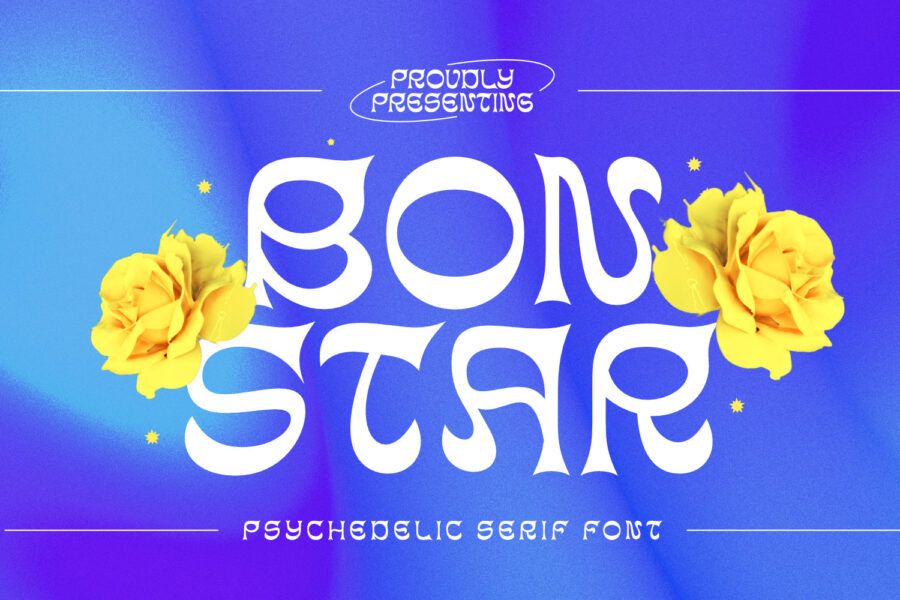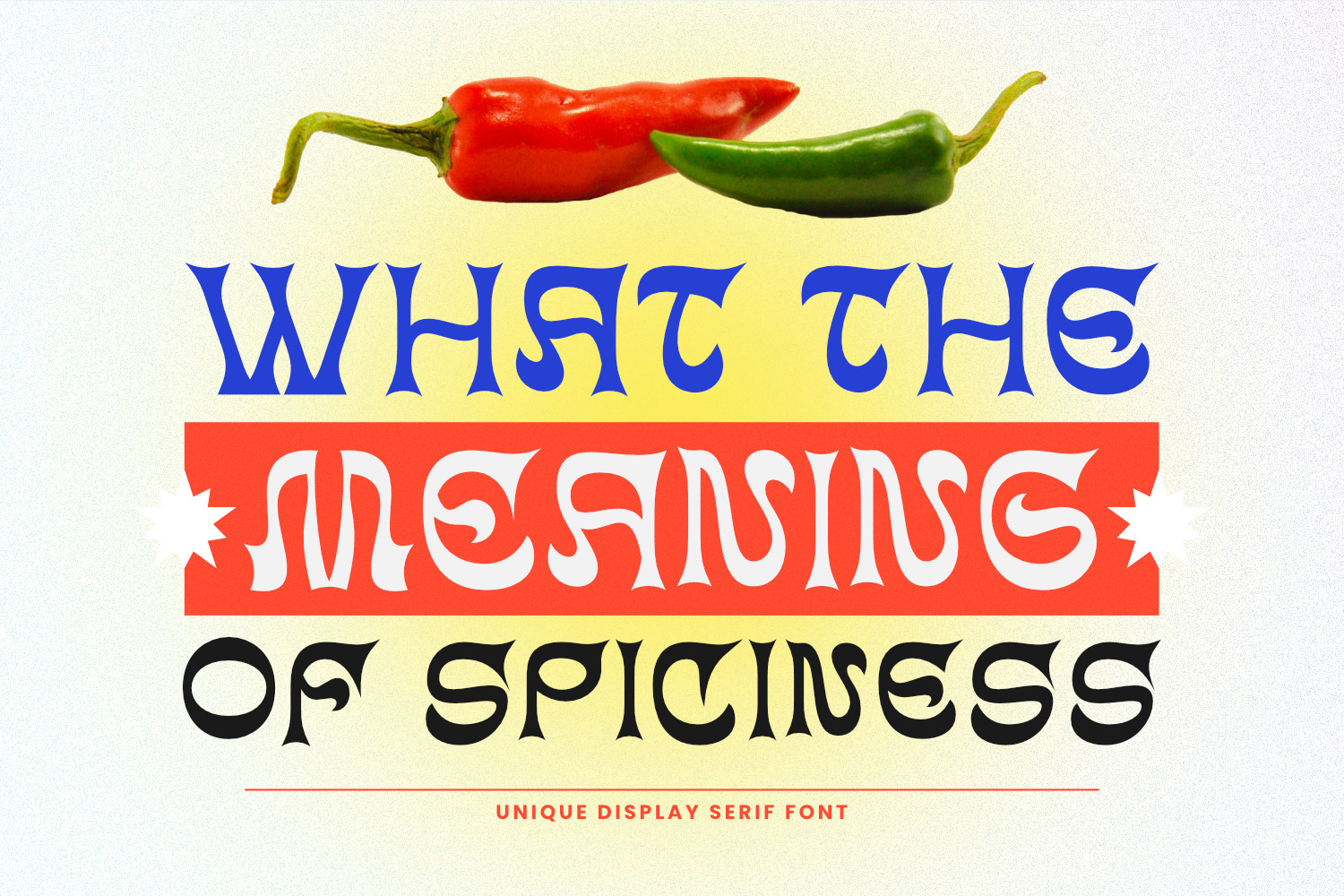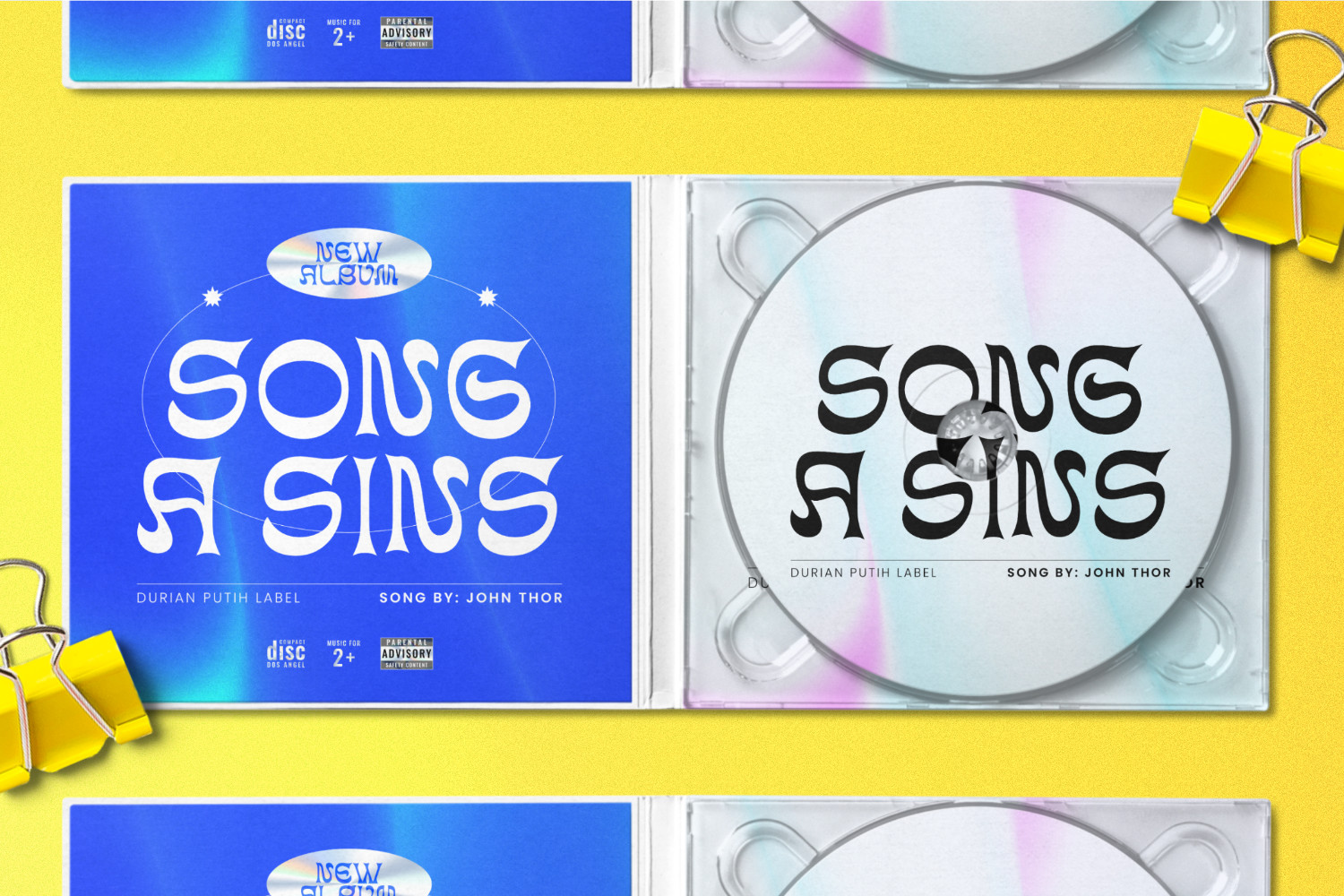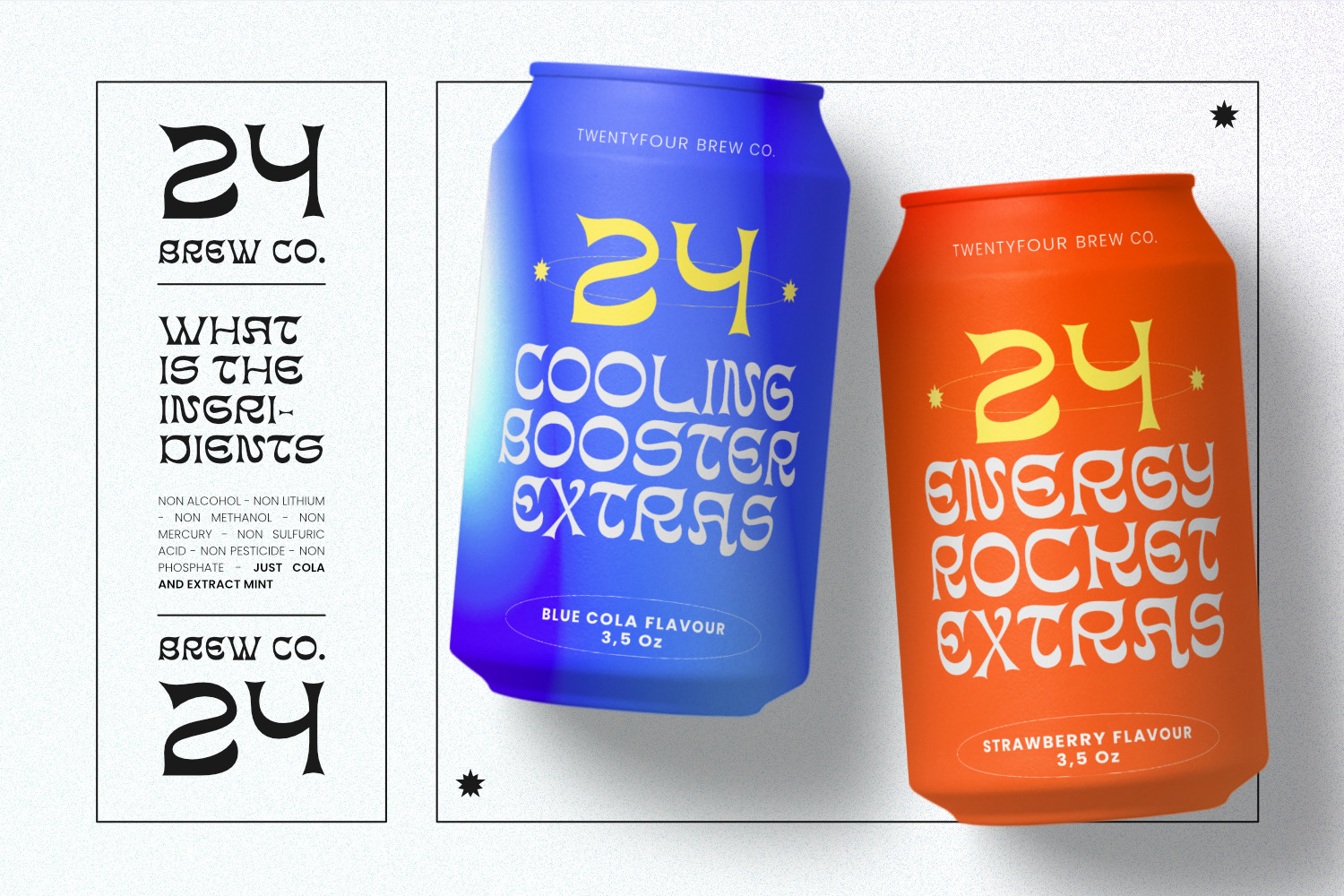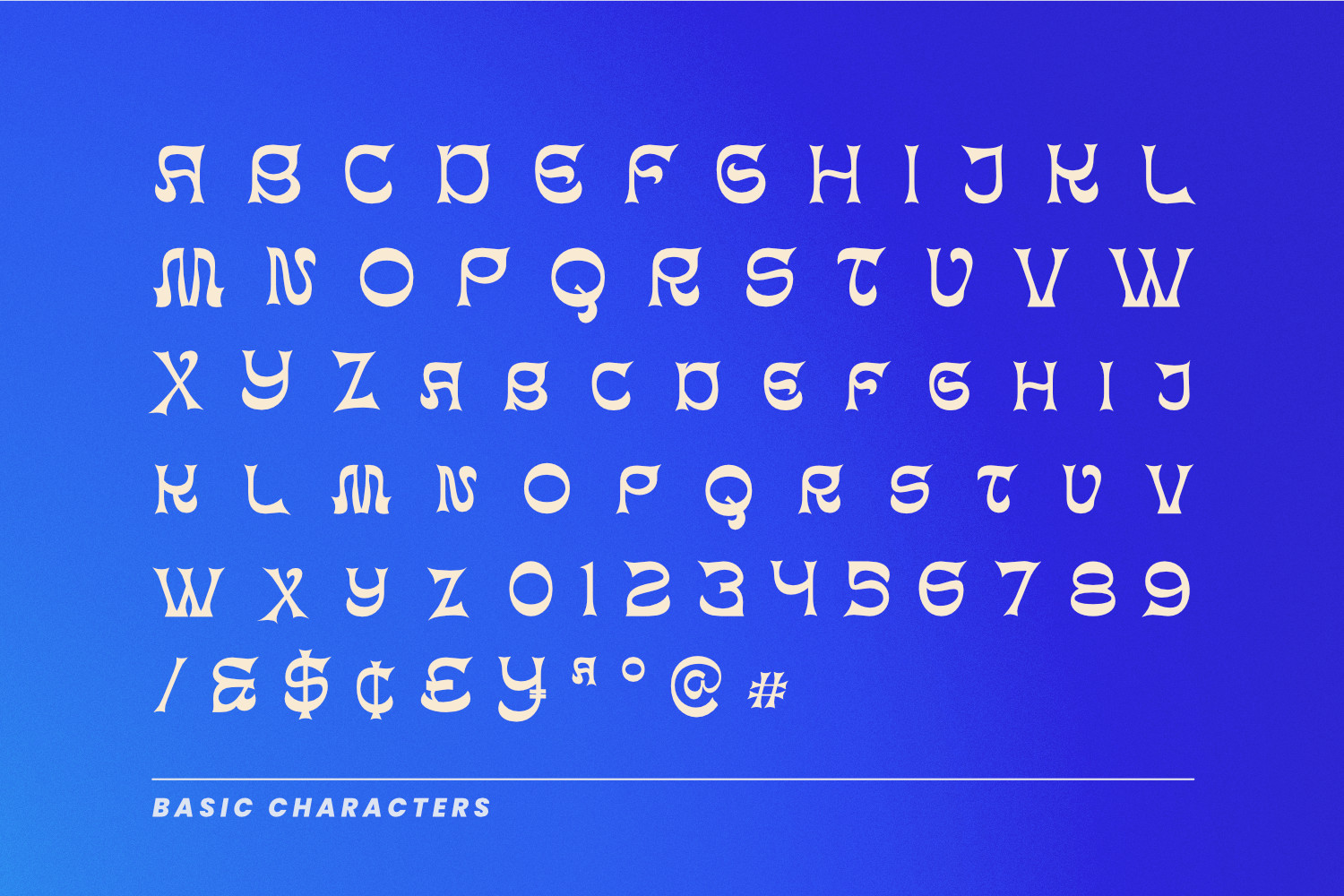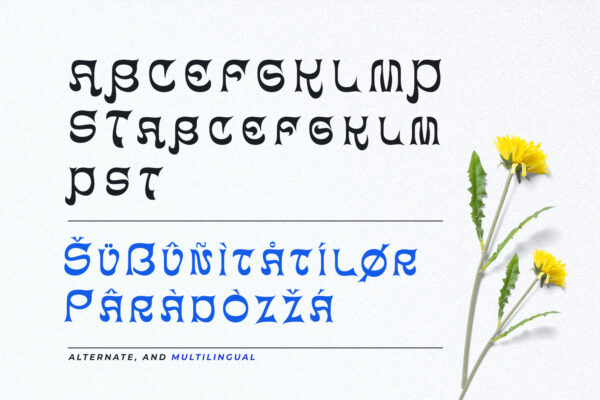
Bonstar is a bold and expressive psychedelic serif font designed to radiate playful energy and retro vibrance. Its whimsical curves and exaggerated serifs evoke a sense of nostalgia, channeling 60s and 70s visual culture with a modern twist. Whether used on album covers, posters, or beverage branding, Bonstar adds a unique personality that instantly captures attention.
With its highly stylized characters, multilingual support, and alternate letterforms, Bonstar is a perfect fit for projects that embrace individuality and experimental aesthetics. The font works especially well in bold display settings, music artwork, streetwear branding, and editorial spreads that aim to make a statement.
Bonstar